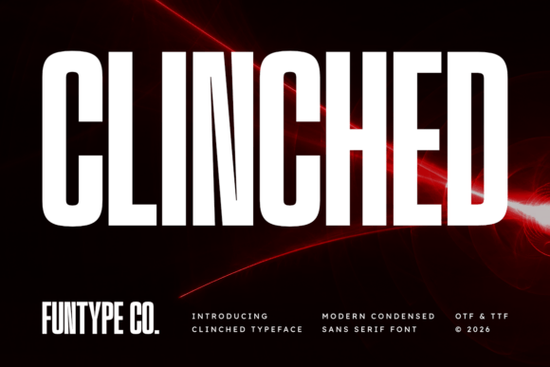
If you're looking for a bold, narrow sans serif font that holds its own in high-impact settings like screen-printed t-shirts, vinyl decals, or event posters Clinched Font is worth your attention. It’s not designed for body text or subtle branding. Instead, it shines where space is tight and presence is non-negotiable: tall headlines, athletic logos, industrial packaging, and urban merch. Its ultra-condensed geometry gives it serious vertical presence without sacrificing legibility at larger sizes.
When does Clinched Font work best?
This isn’t a font for every project but when it fits, it fits tightly. Think of it as the typeface you reach for when you need something that reads loud and clear from across a room or stands out on a black hoodie. Its dense vertical scaling and clean geometric blocks make it ideal for:
- Streetwear brand names and logo lockups
- Digital event posters (especially music, fitness, or art festivals)
- Custom vinyl lettering for walls, vehicles, or signage
- Heavy-duty product packaging think canned drinks, apparel tags, or tool kits
- Minimalist yet assertive social media banners or Instagram story headers
Because it’s built for display use not long paragraphs it pairs well with simpler, more open fonts for contrast. For example, if you’re designing a concert poster, you might set the headliner in Clinched, then use a relaxed sans like Studdy Planner for supporting details. That kind of balance keeps things readable while still giving the main message real weight.
That said, keep in mind: because of its extreme condensation, Clinched doesn’t scale down gracefully. Below ~36pt, spacing tightens up and letters can start to visually merge especially in all-caps settings. So reserve it for headlines, logos, and large-format applications where its strength lies.
How does it compare to other modern sans serifs?
It’s narrower and taller than most condensed fonts on Creative Fabrica. Vantura, for instance, has similar confidence but a slightly softer rhythm and more generous side bearings great if you want authority without austerity. Lavender Magic leans playful and rounded, better suited for lifestyle brands or feminine packaging. And Natural Story offers organic warmth, making it a strong pick for eco-brands or handmade goods.
None of these replace Clinched they complement it. You wouldn’t use Lavender Magic for a boxing gym logo, just as you wouldn’t reach for Clinched for a yoga retreat brochure. Knowing why each font exists helps you choose faster and design more intentionally.
If you’d like to see how designers are actually using it in real projects, Clinched Font has user-uploaded mockups showing it on tote bags, enamel pins, and digital ads. Those examples help visualize spacing, kerning, and color pairings before you commit to a full design.
• Test it at your intended size first especially if printing on fabric or vinyl. Some cutting machines interpret tight letter spacing differently than screen previews.
• Turn on optical kerning in your design app if available it helps tighten gaps between uppercase letters like “T” and “A” or “V” and “E”.
• Avoid overloading it with effects. Drop shadows or heavy outlines can muddy its sharp edges. A crisp stroke or solid fill usually works best.
• Pair it with neutral, highly legible fonts for body copy not other condensed styles. Contrast in width and tone makes hierarchy clearer.
If you’ve used Clinched Font on a recent project, try swapping one element like the tagline or subhead with Studdy Planner or Vantura to see how the mood shifts. Small changes like that often reveal more about your brand voice than you expect.